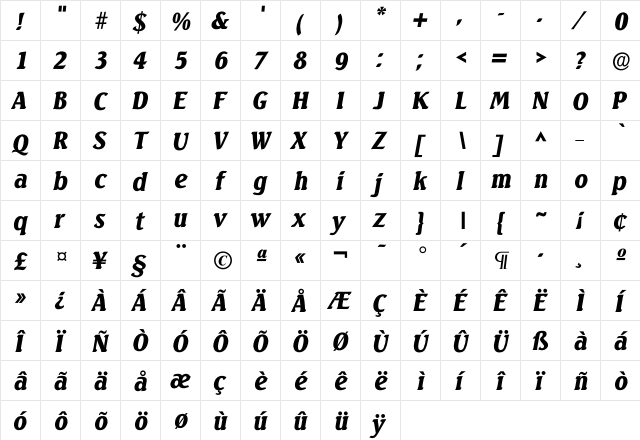
Iseagul Black
Design Context for Iseagul Typeface
Iseagul offers clean, dependable letterforms without strong stylistic allegiance, making it a practical choice for designers who need flexibility.